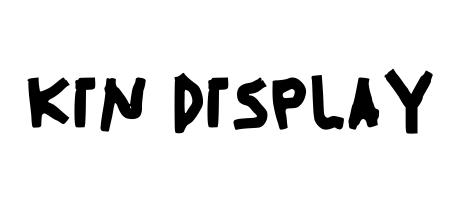
Kin Display
Kin Display is a bold, hand-drawn typeface. Its irregular, slightly jagged letterforms evoke a sense of raw energy and spontaneity. The strokes are thick and consistent, giving it a strong, almost graffiti-like appearance. While informal, it retains readability, making it suitable for eye-catching headlines or logos.